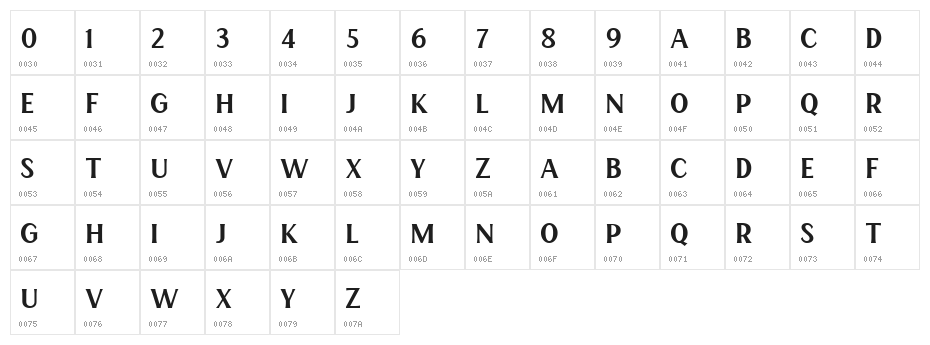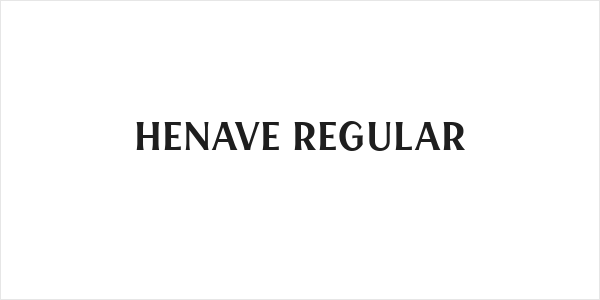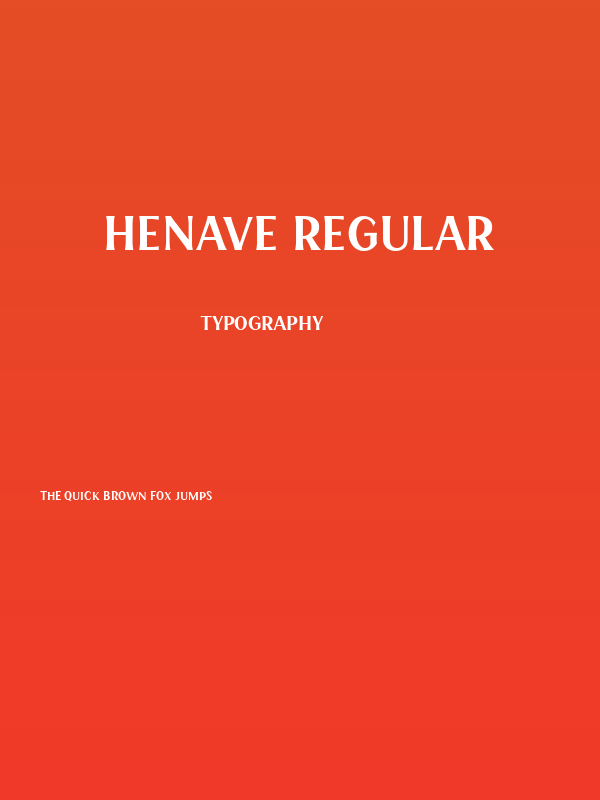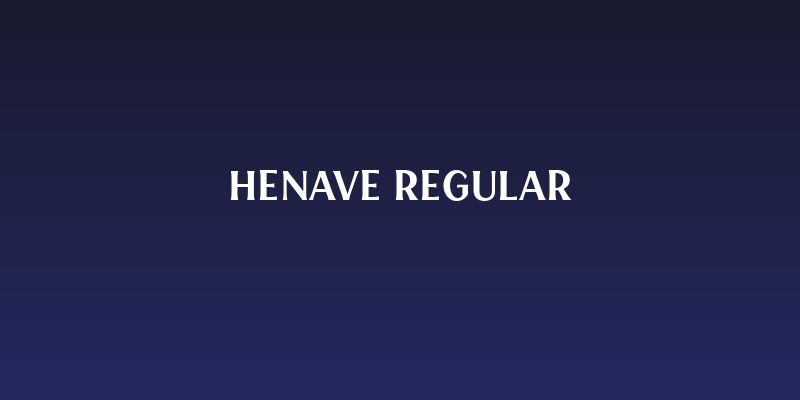
HENAVE Regular Font
HENAVE Regular Description
This font features a classic serif style with strong, bold strokes and a traditional feel. The characters are well-defined with sharp serifs that add a touch of elegance and sophistication. The uppercase letters are prominent and commanding, making them suitable for headlines and titles. The numerals are clear and easy to read, maintaining the same boldness as the letters. The overall design is balanced, with consistent stroke widths that provide a harmonious appearance. This font is ideal for projects that require a formal and authoritative look.
| Use Case | Headlines, Logos, Editorial design |
| Proposed Projects | Ideal for book covers, formal invitations, branding, and editorial design. |